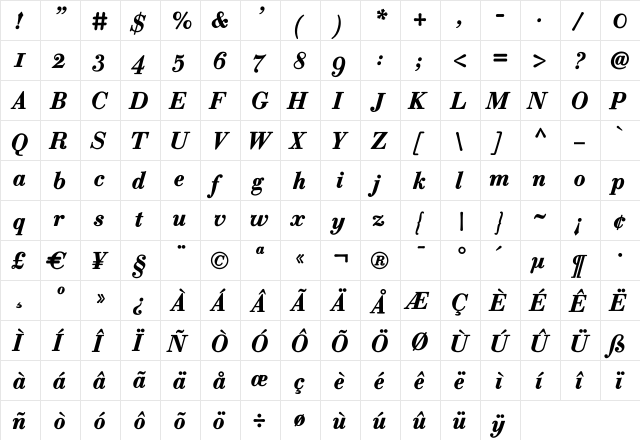
Robusta Bold Italic
Design Context for Robusta Typeface
Robusta offers clean, dependable letterforms without strong stylistic allegiance, making it a practical choice for designers who need flexibility. The dynamic lean of this cut emphasises speed and emphasis in any layout. Its bold stroke weight gives it real presence on the page.
Pro Tip: Use Robusta for emphasis, pull quotes, and subheadings where its slanted energy can add rhythm to the layout.